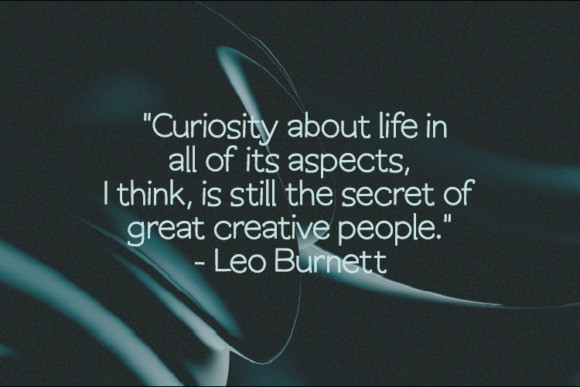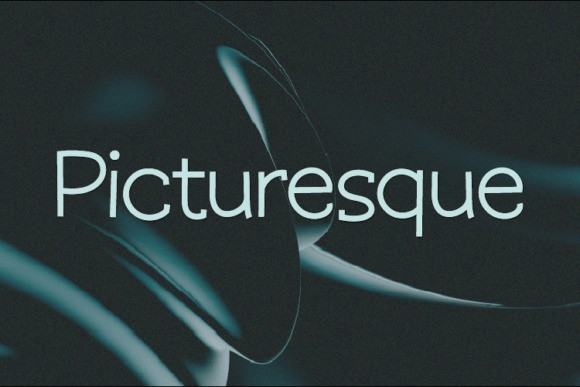
Picturesque Font
Picturesque Font is a natural sans serif font made without changing a single node in each character’s indentation- this makes this font very interesting and unique. Perfect for quotes, notes, tees, and any product design.